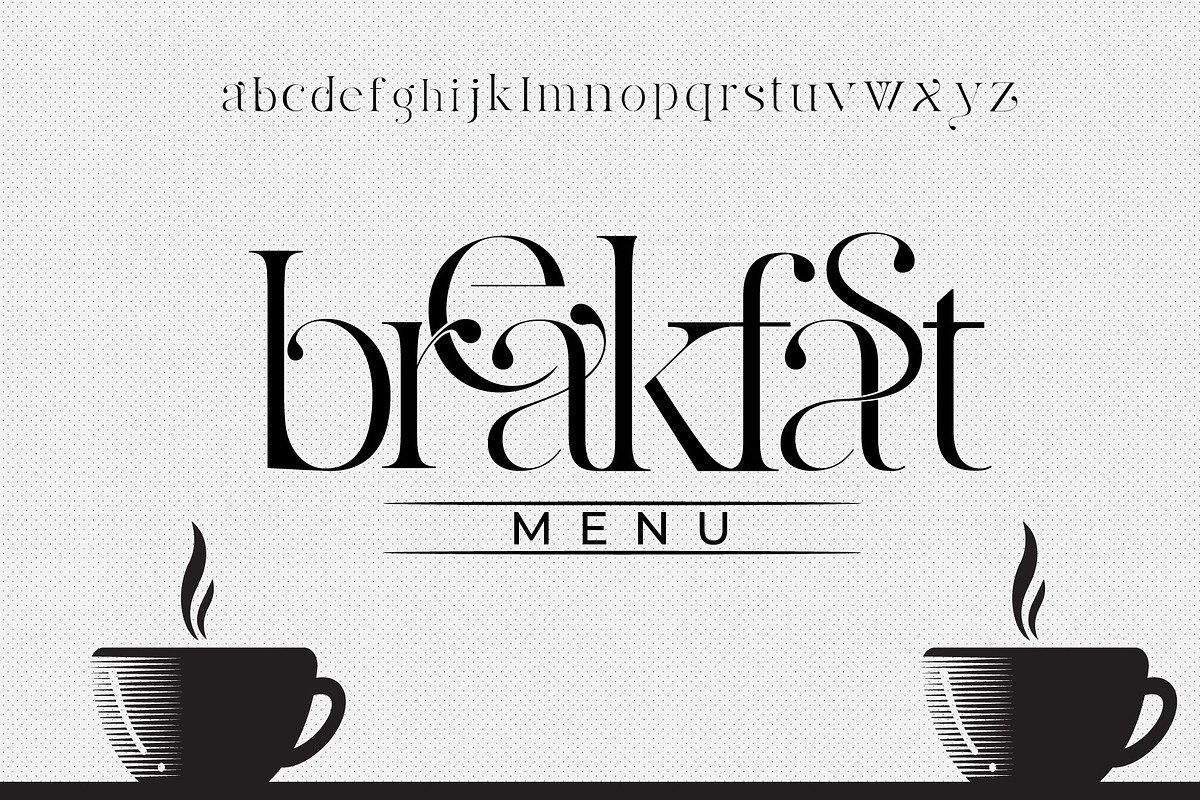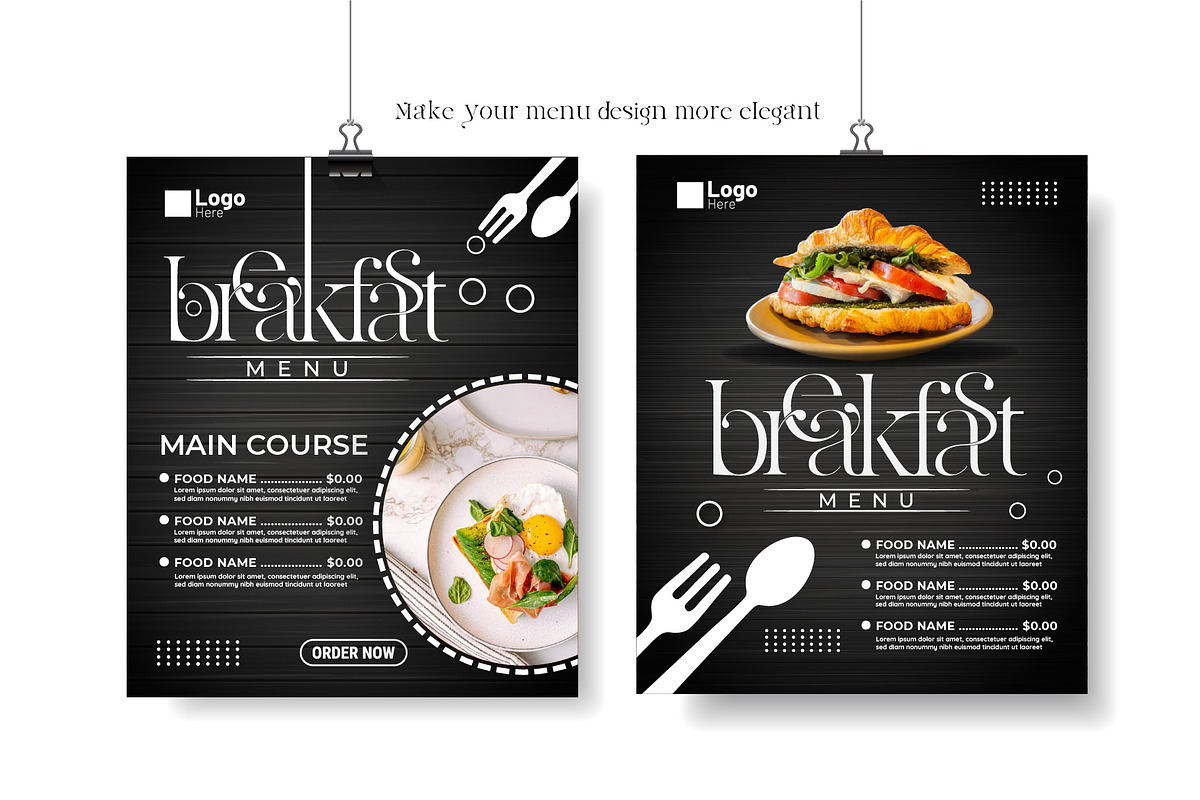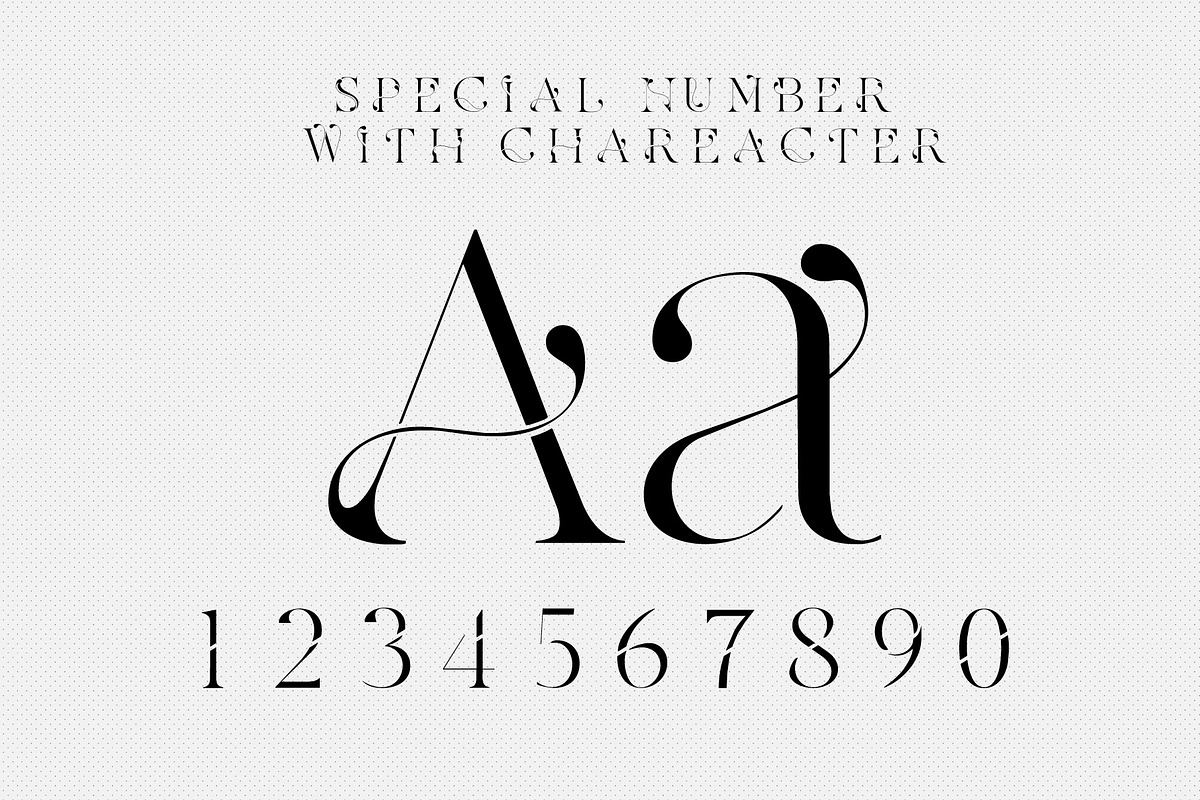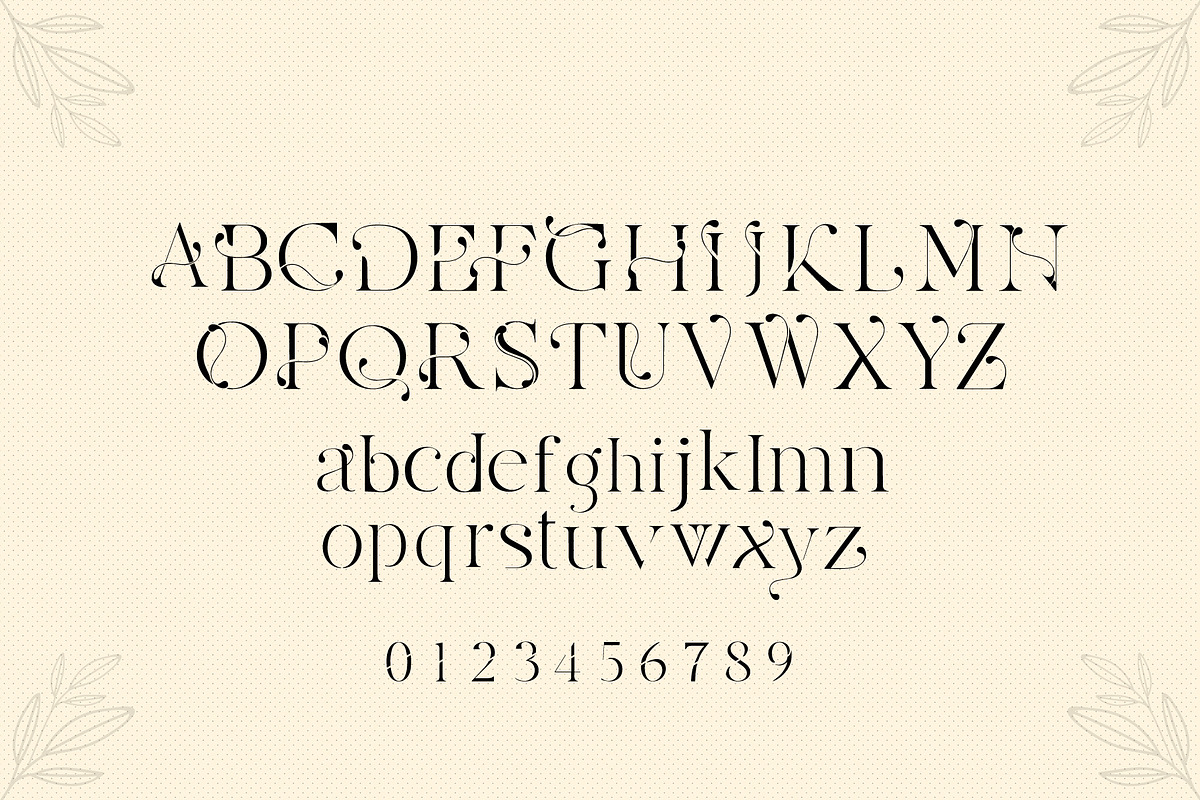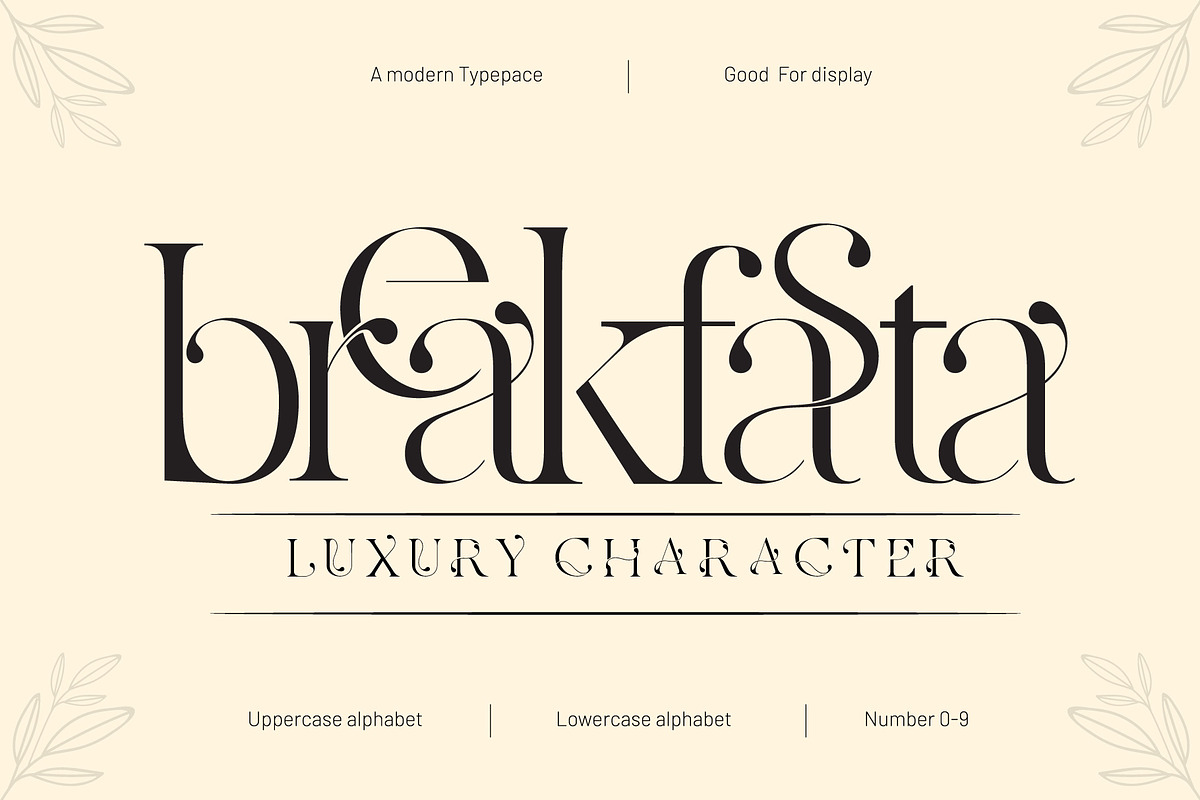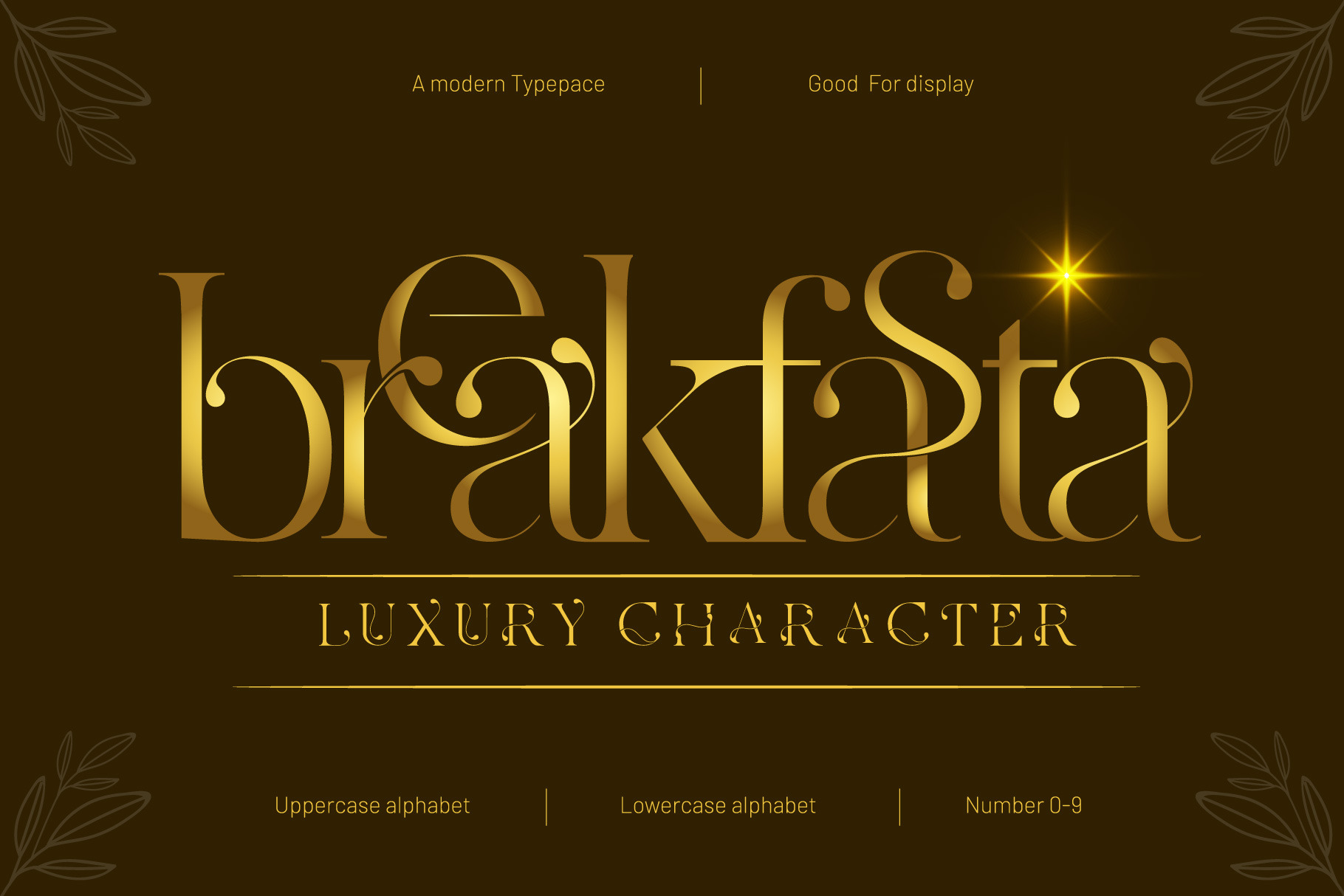
Breakfasta - Serif display Font
Breakfasta is a font that is suitable for luxury and trendy brands, businesses for food products, hotels and the other tourism industry. Only suitable for display, if you want it to be neatly organized, you can arrange it yourself. **
- Uppercase alphabet
- Lowercase alphabet
- Number 0-9
- No symbol character